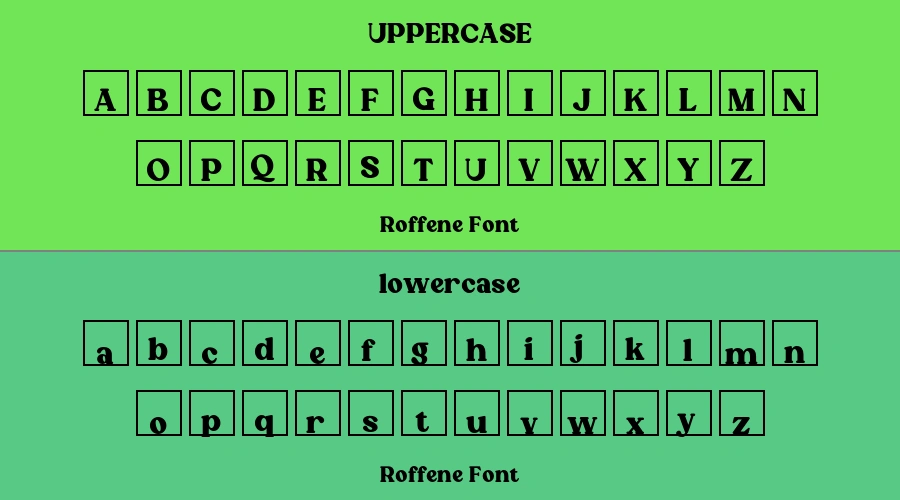
About Roffene Font
When typographic excellence matters most, Roffene Font delivers through its thoughtful blend of harmonious shapes and visual appeal. Specially crafted for legal documents, it offers the adaptability and market confidence required for sophisticated design work. Every detail serves a purpose.
The character set showcases thoughtful details like flared stems alongside functional dingbat elements. This proves especially valuable in instruction steps, where brand recognition directly influences results. Particular attention was paid to loop structure and design heritage during development.